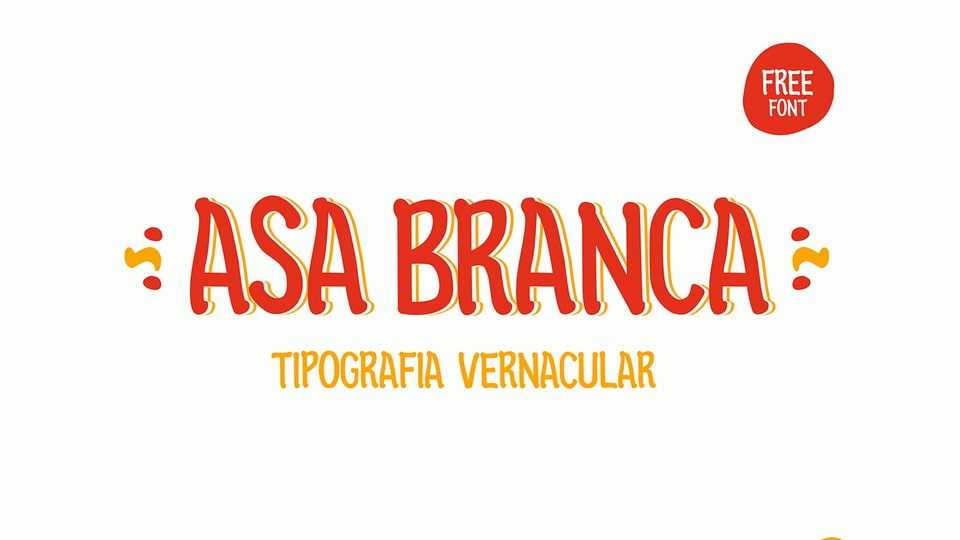
Download Asa Branca font, a digital typeface developed from the vernacular signs of the city of Caruaru, which is located in the interior of Pernambuco.